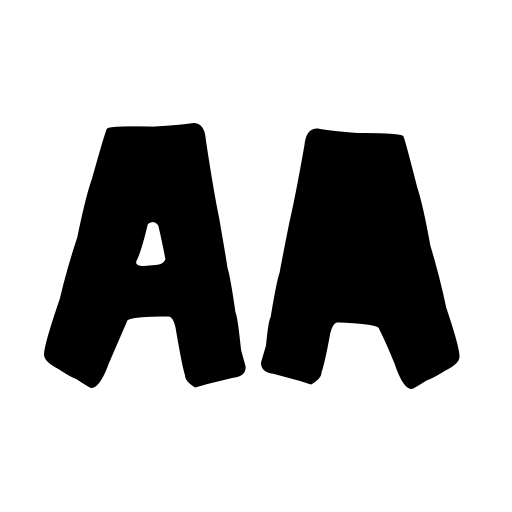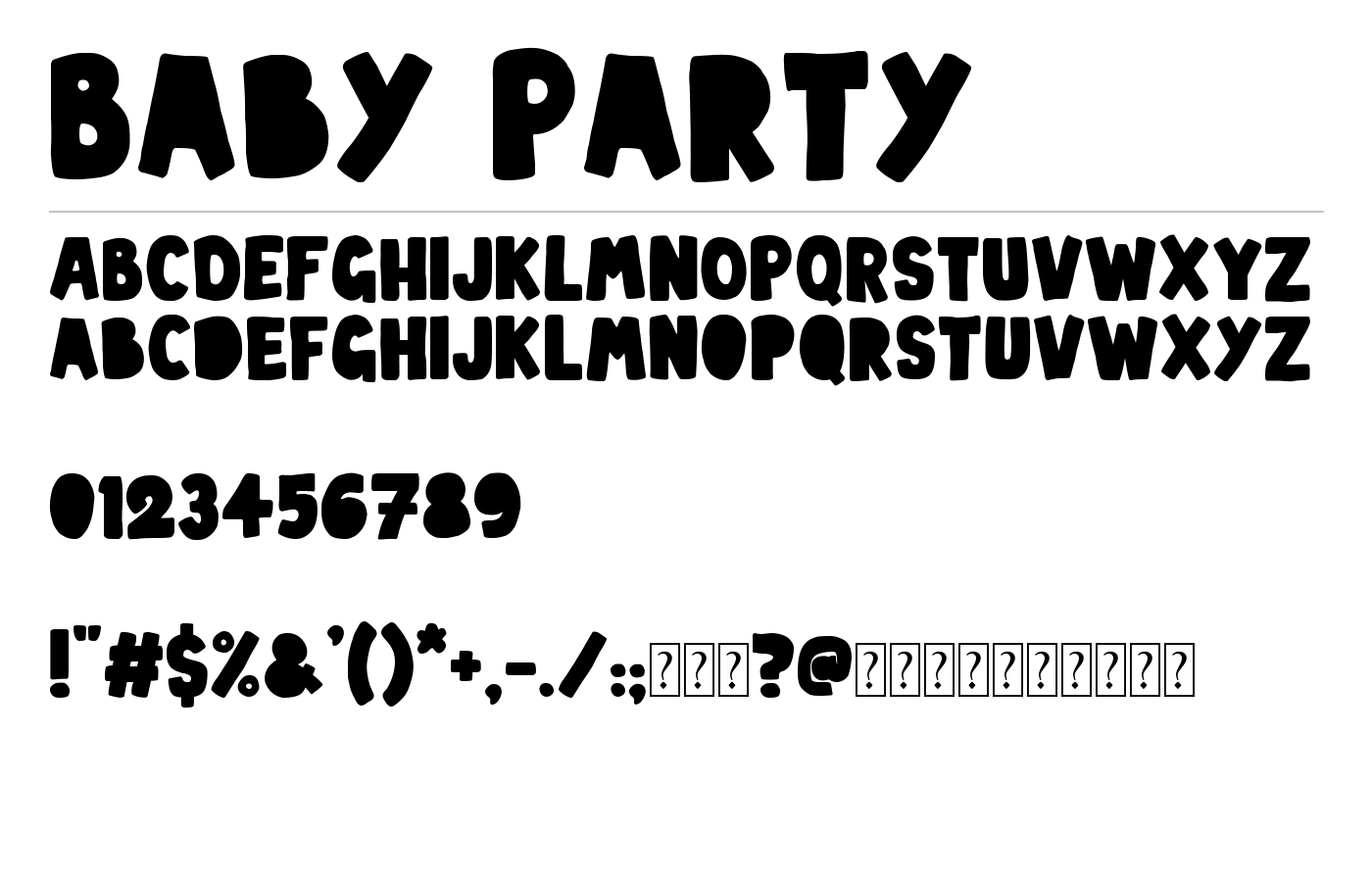
Baby Party is a playful, bold sans serif font characterized by its chunky, irregular letterforms that resemble hand-drawn shapes. With its high x-height and rounded edges, it conveys a fun, childlike personality perfect for kid-friendly designs, casual invitations, and lively branding. This font works well in settings where a cheerful and approachable tone is needed, making it ideal for party signage, children’s books, and creative headlines.
Baby Party Font